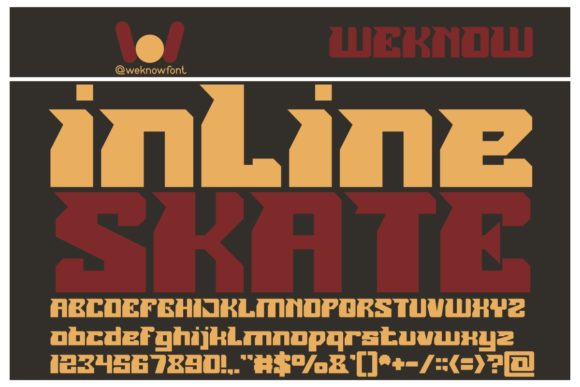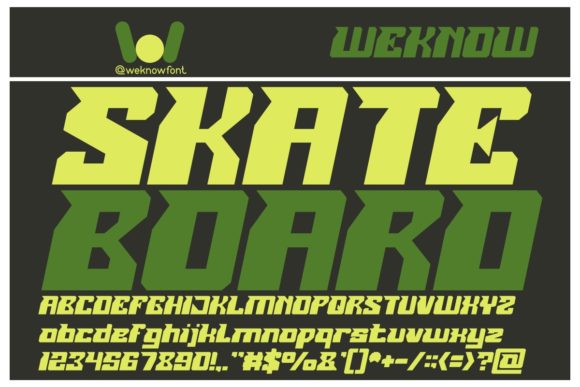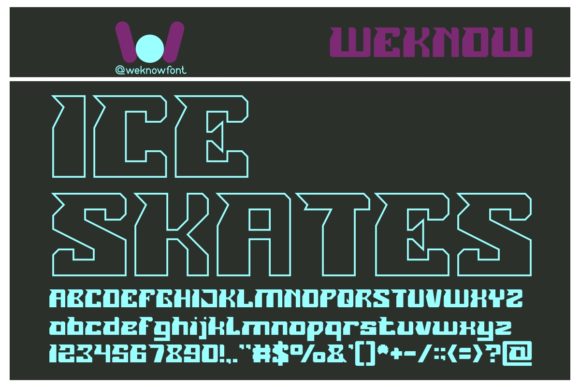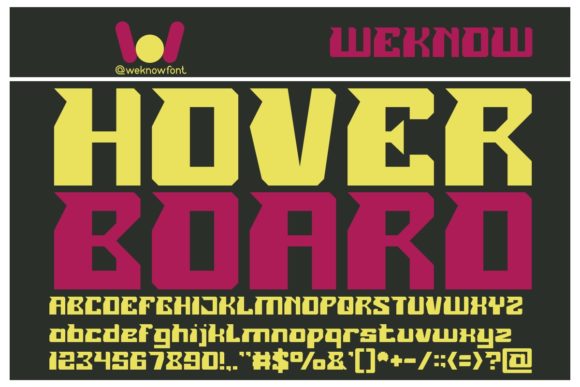
Introduction to Roller Blade Font
Roller Blade is a cute & friendly display font.
Get inspired by its incredibly youthful feel Add this chunky lettered font to your designs and notice how it makes them come alive.
Key Features of Roller Blade Font